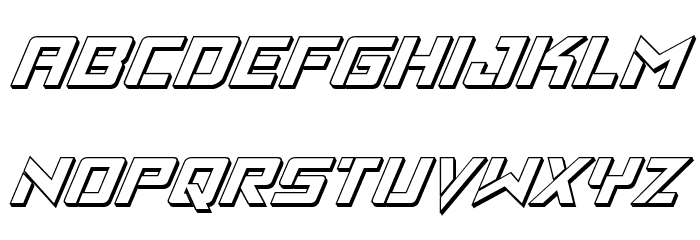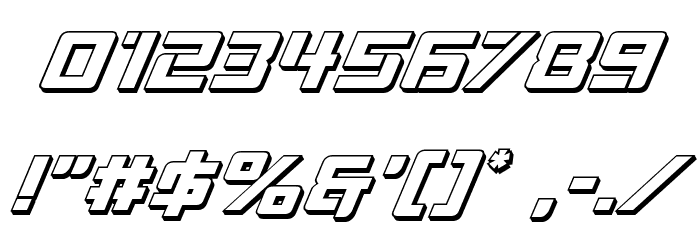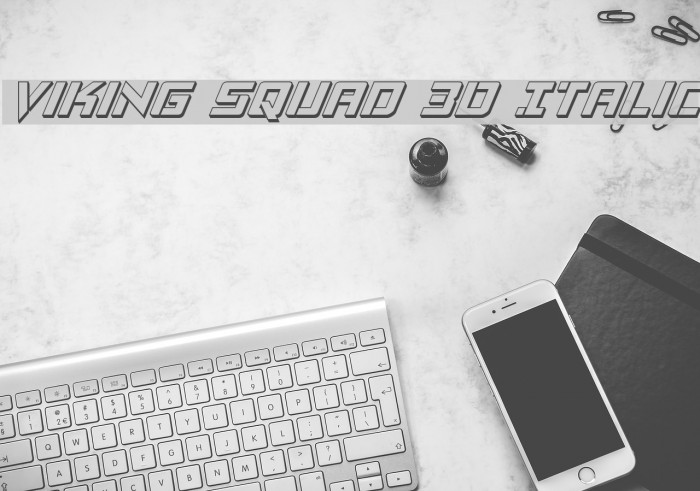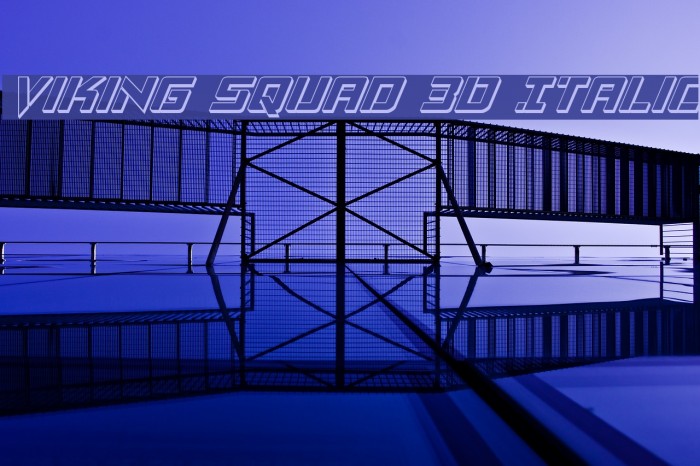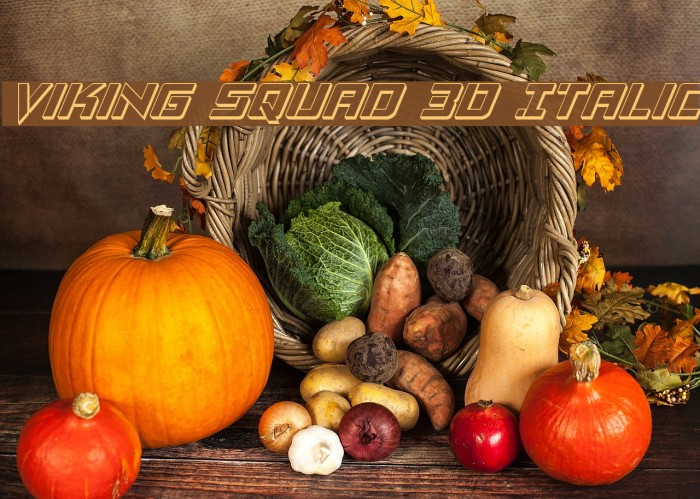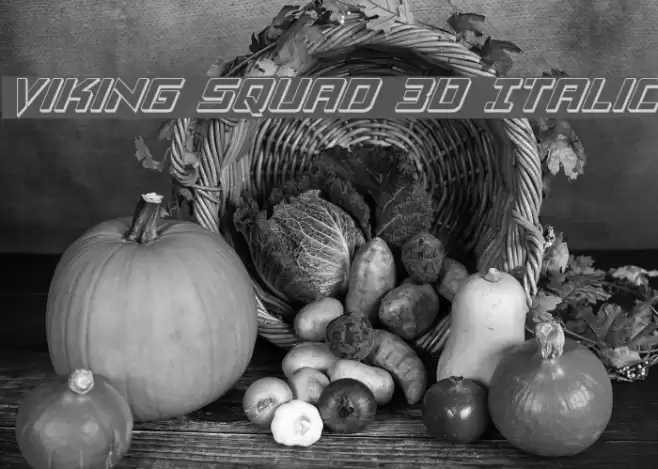
Viking Squad 3D Italic Font
This font features a bold, three-dimensional design with an italic slant, giving it a dynamic and futuristic appearance. The characters are outlined, creating a hollow effect that enhances the 3D illusion. The angular and geometric shapes of the letters contribute to a modern and edgy style, making it stand out in any design. The uppercase and lowercase letters maintain a consistent style, while the numbers and special characters complement the overall aesthetic. This font is ideal for projects that require a strong visual impact.
Bold, 3D italic font with a modern, geometric style.
- Proposed Projects: Ideal for video game titles, tech-themed posters, futuristic branding, and dynamic logo designs.